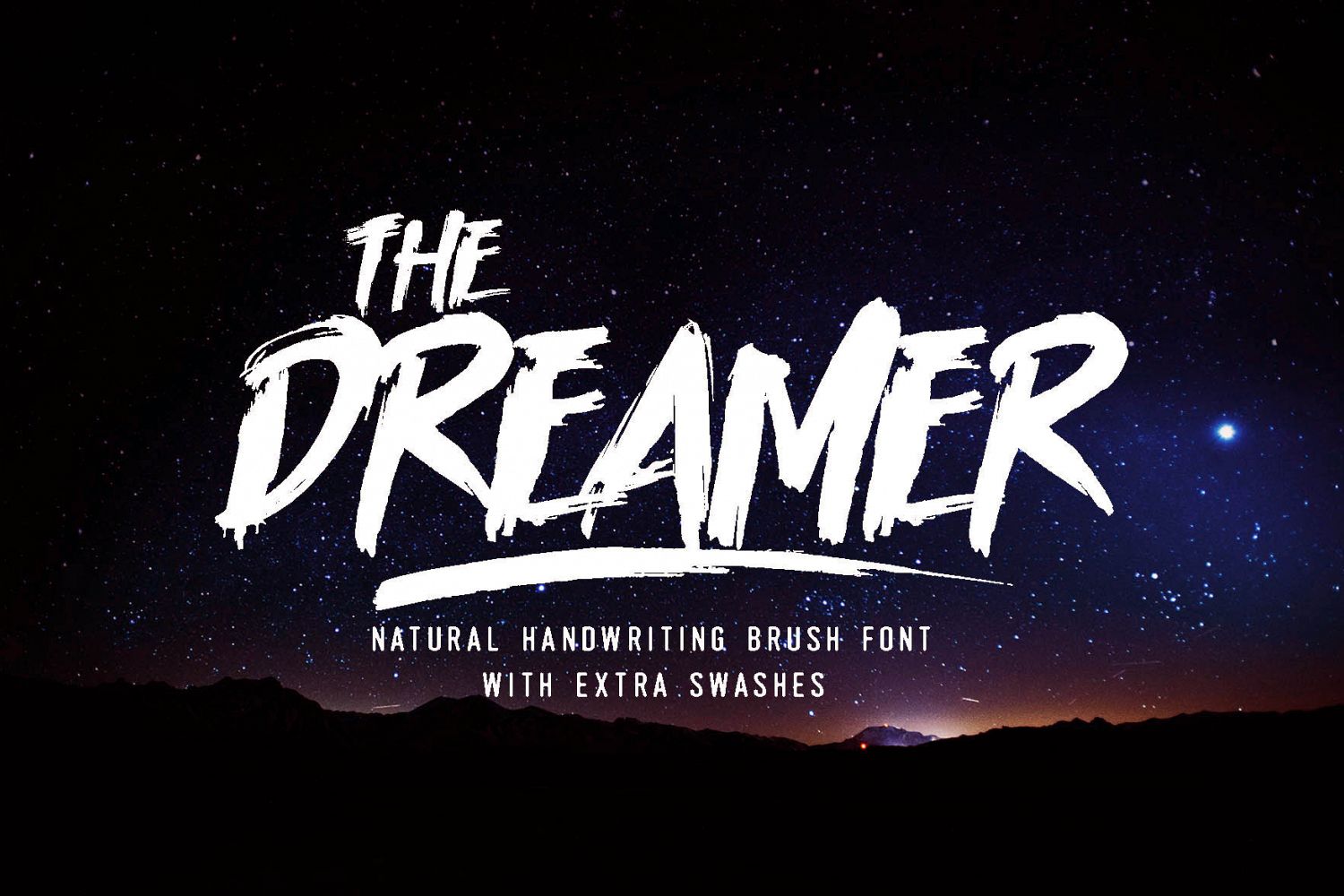
Dreamer Brush Font
the Dreamer font is handwritting brush font. This made by manual broken marker, so the brush is very natural. the Dreamer font is very suitable for your work (Logo, branding, clothing, poster and others ) Whats Include :